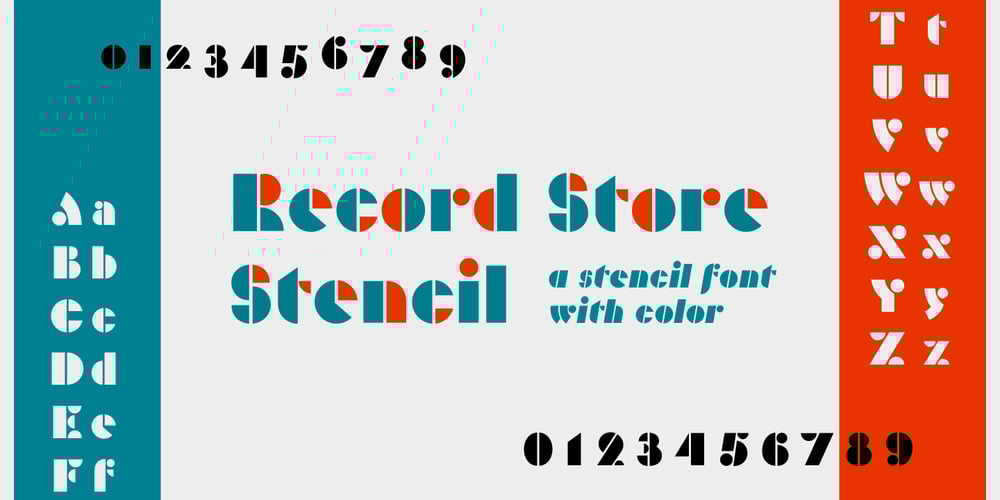
Record Store Stencil
Record Store Stencil font
Record Store Stencil Font Family was designed by Ian Farnam and published by Ian Farnam. Record Store Stencil contains 9 styles and family package options. Record Store Stencil is based on classic stencil lettering from the first half of the 20th century. The font features Upper and lowercase, small caps, in upright, italic, and backslant. The font’s multipart letterforms are ideal for color application. Available are two color variations, Black with Red accents and Blue with Red accents, with cycling activated through contextual alternates.